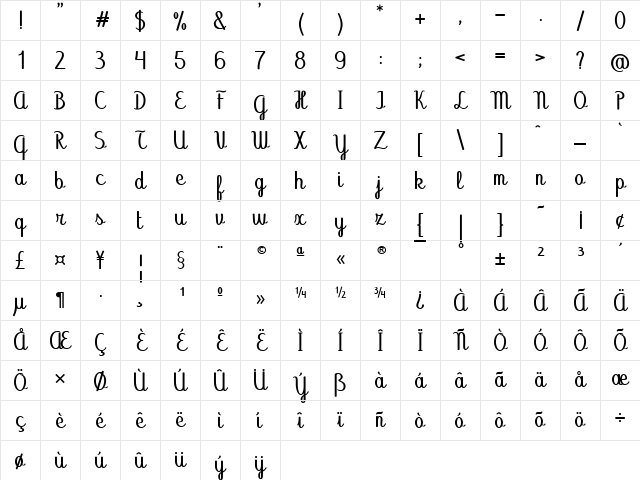
Abecedary Regular Free Font
Abecedary Regular
Foundry: Yves Michel
Designer: Yves Michel
Complete Abecedary Regular glyph index. Displaying only characters natively supported by Abecedary Regular font.
Design Context for Abecedary
Abecedary is a composed and adaptable typeface that performs quietly and consistently across a wide range of design contexts.